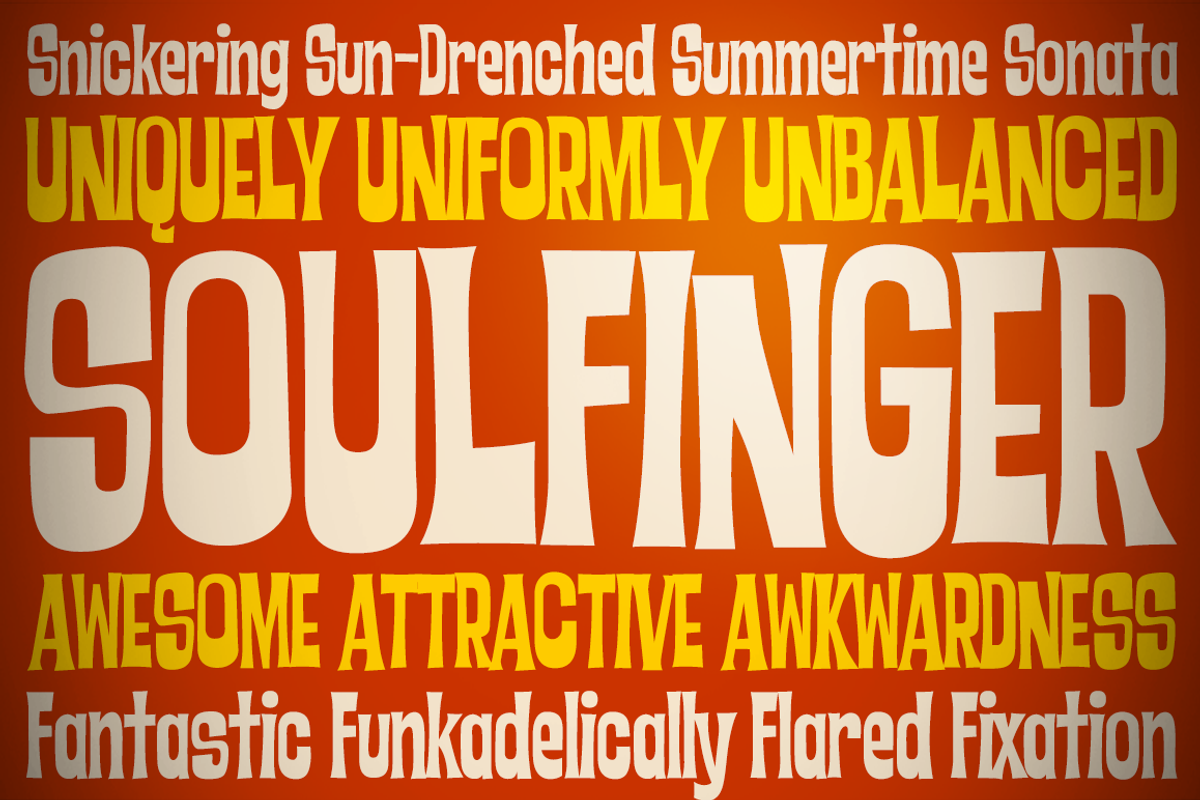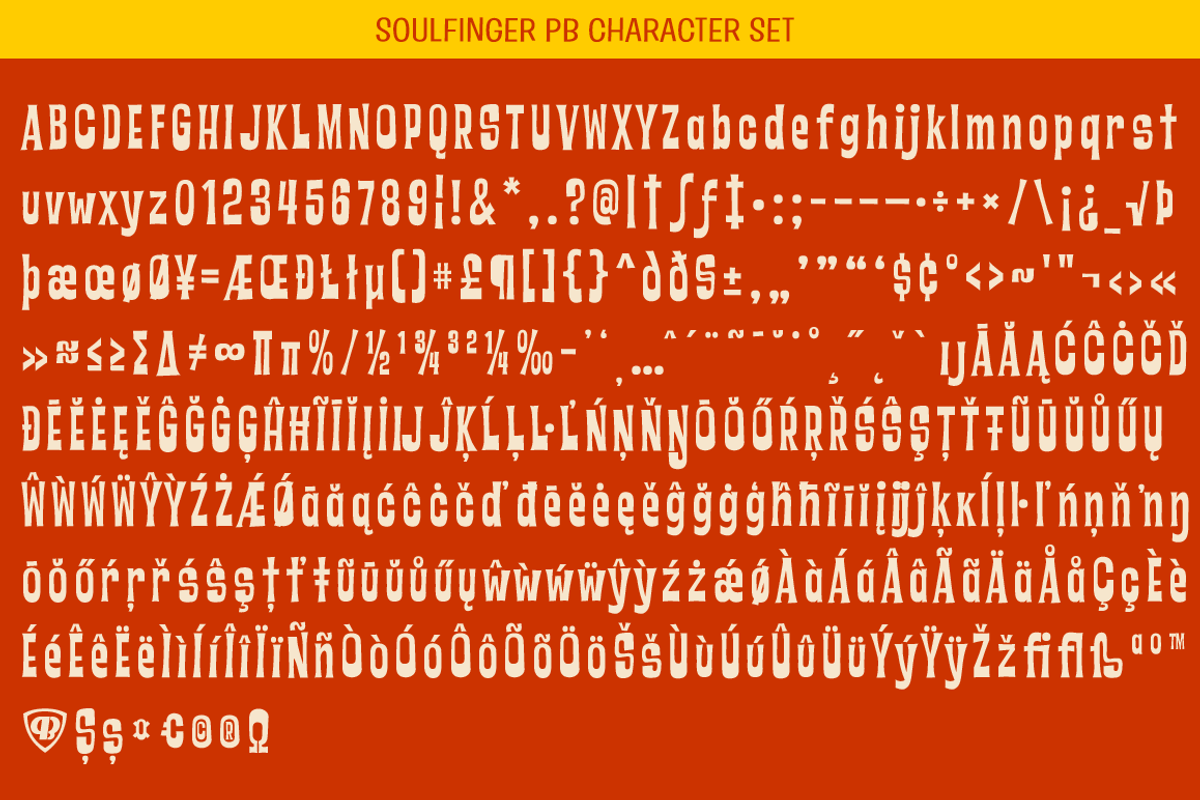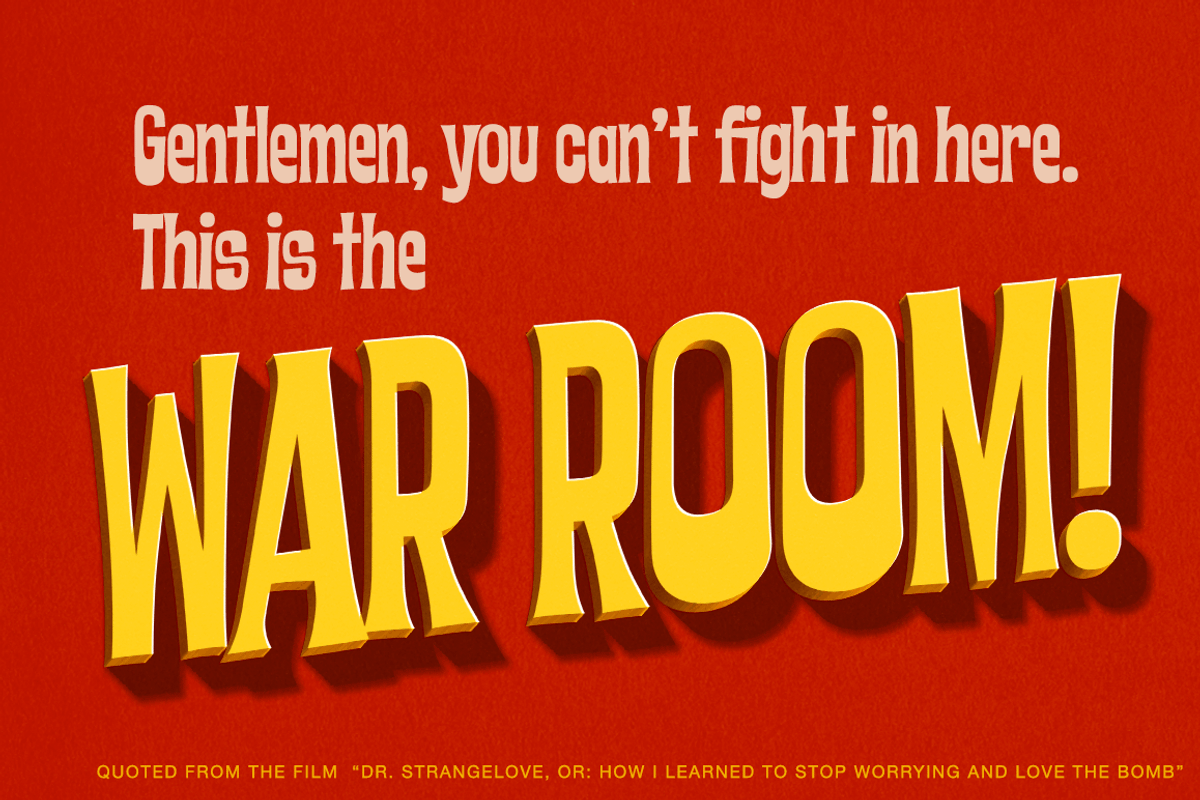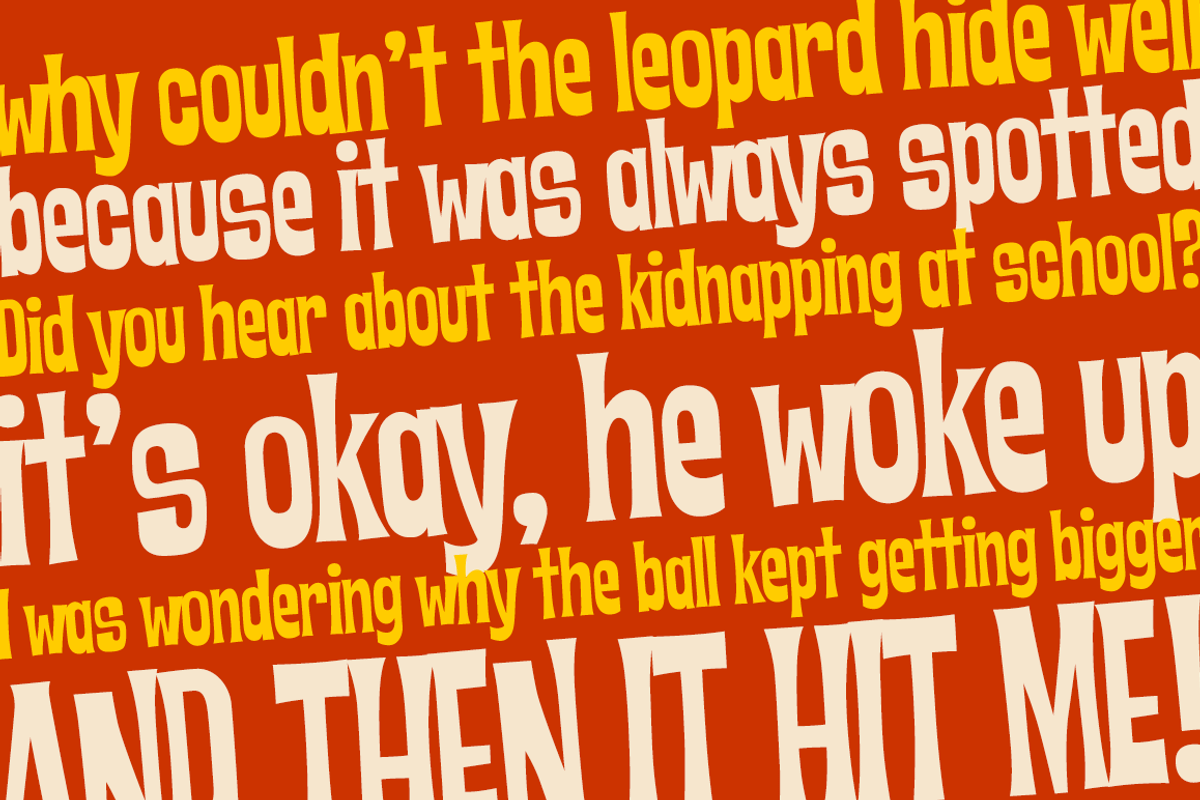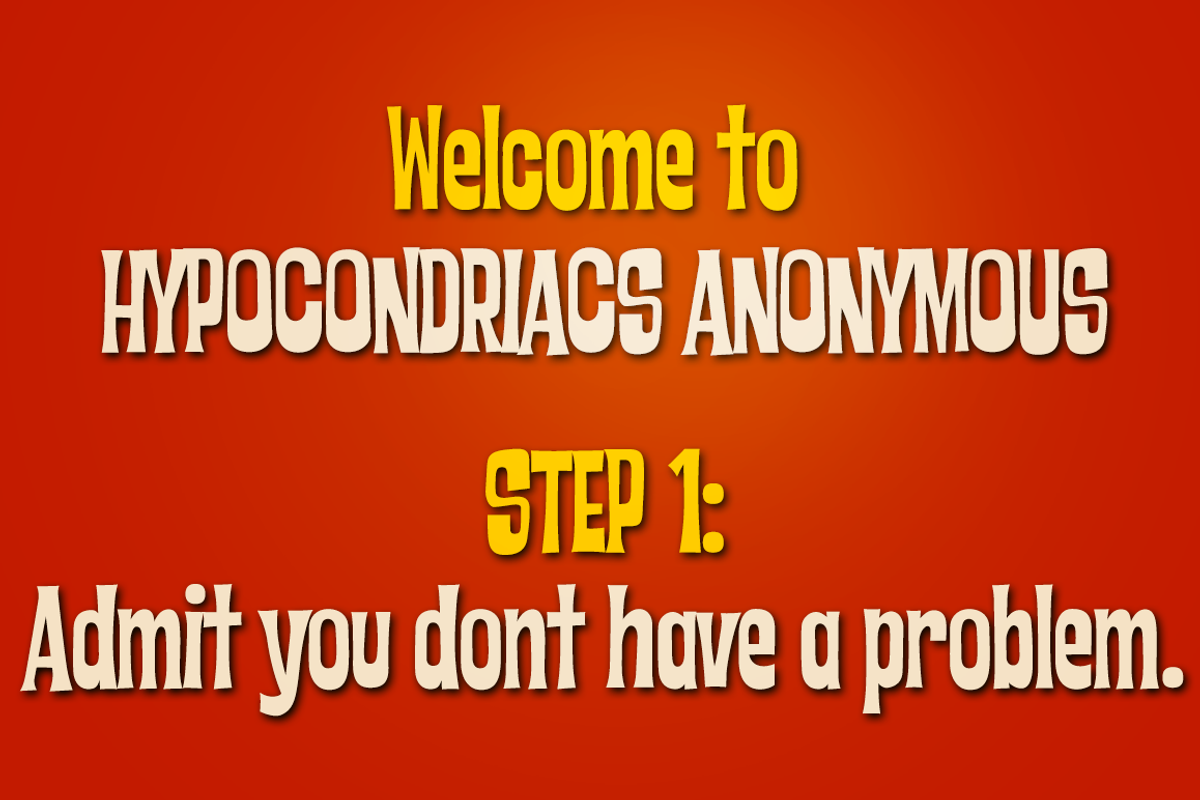
Soulfinger PB
Soulfinger PB is a another frisky offbeat typeface from Pink Broccoli, this time inspired by a vintage paperback cover of Patricia Highsmith's "A Pleno Sol". Soulfinger is a flare serif with just enough visual dance to it without going off the rails. It's simply a celebration of the original vintage paperback titling, letting it's freak flag fly, so to speak.